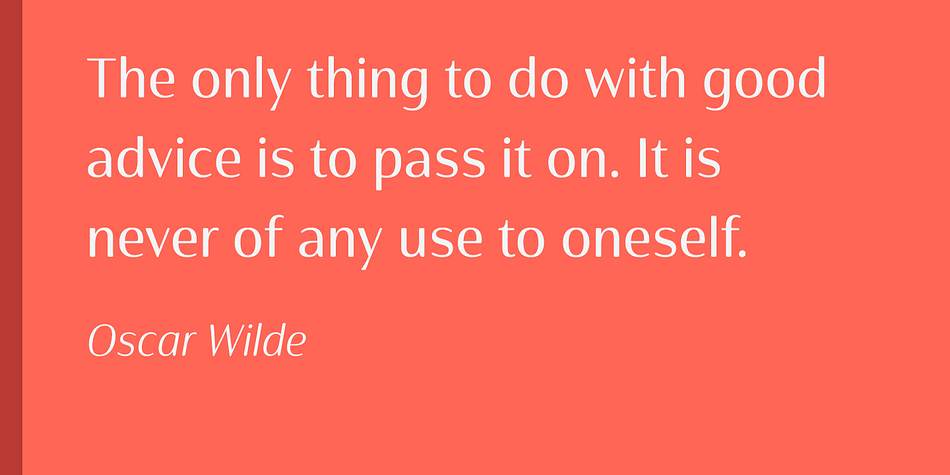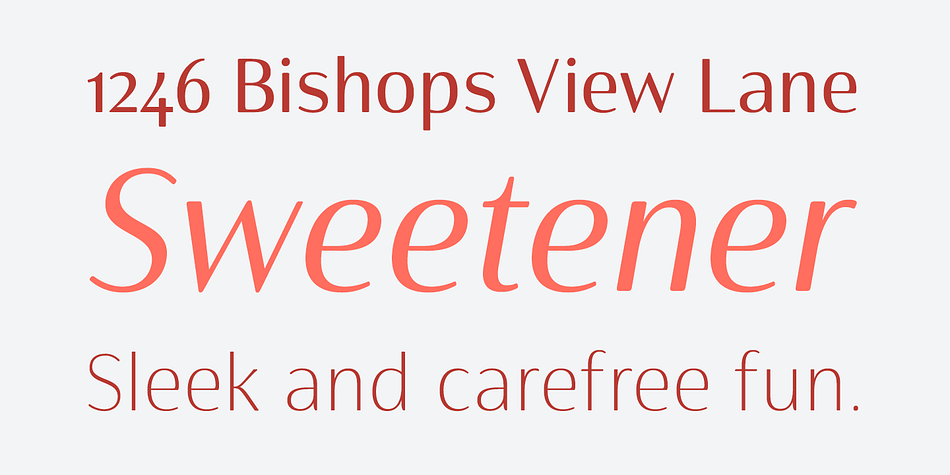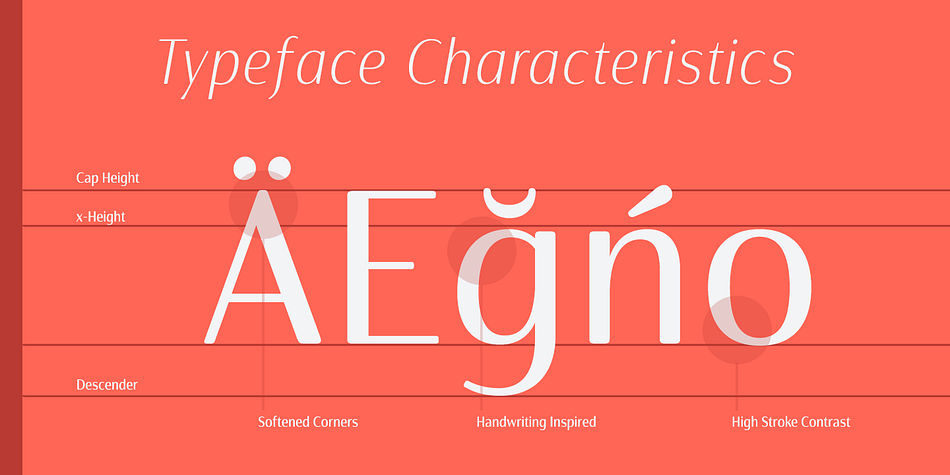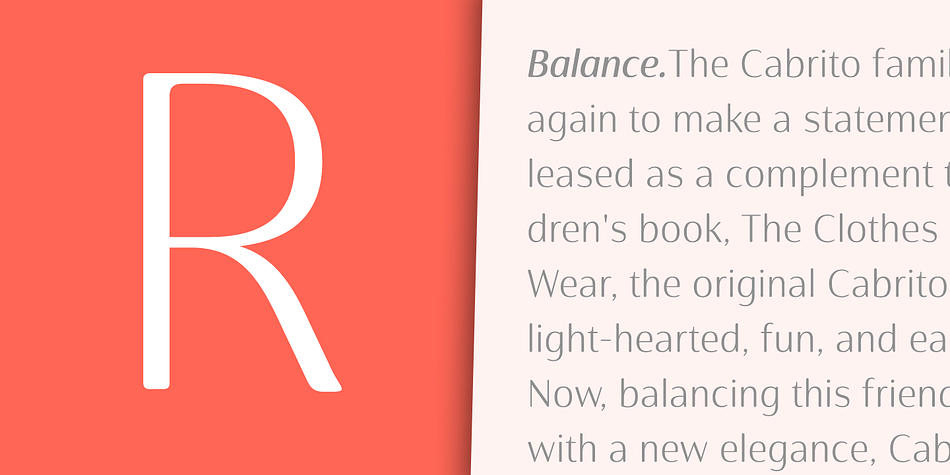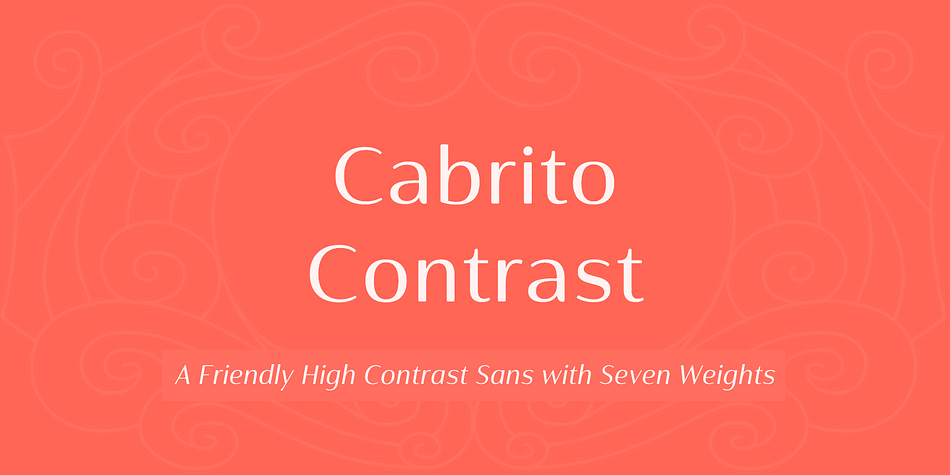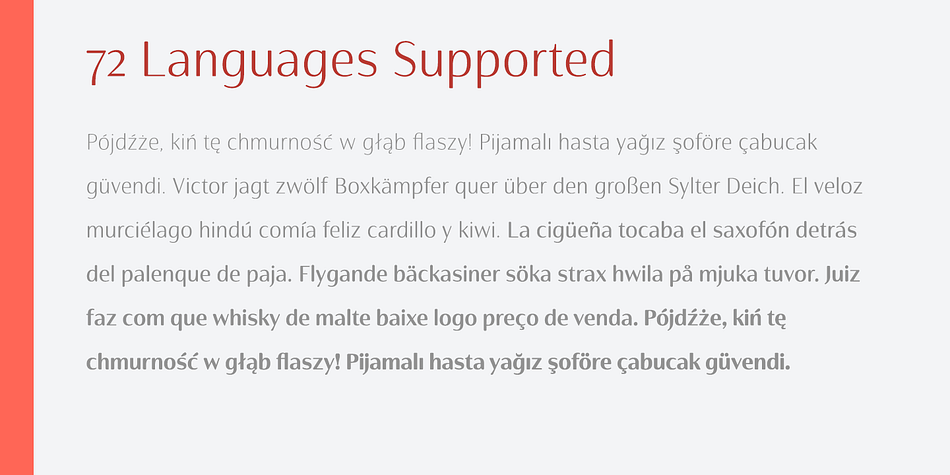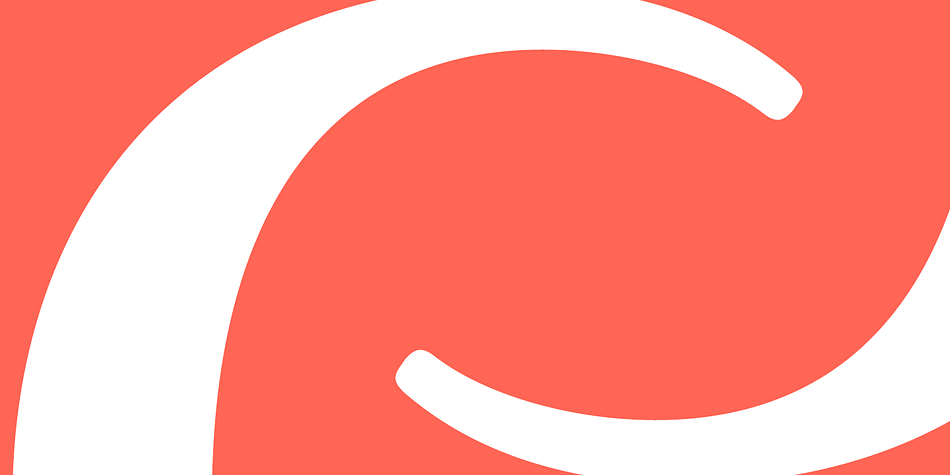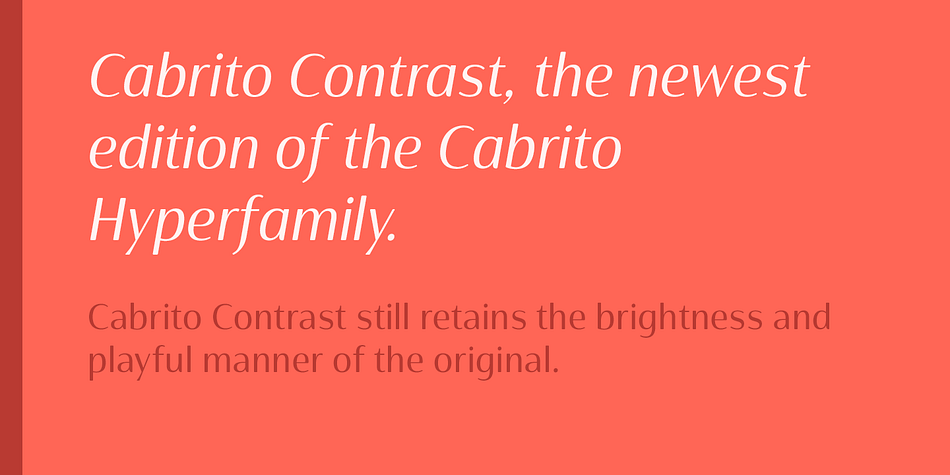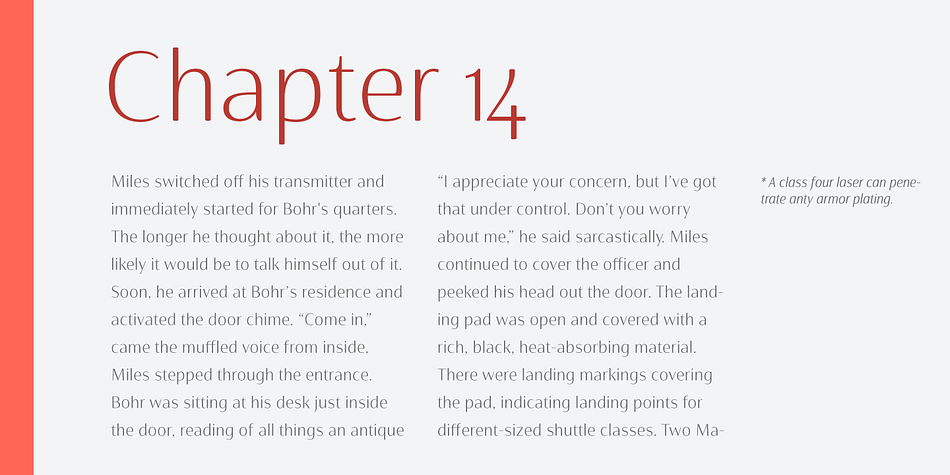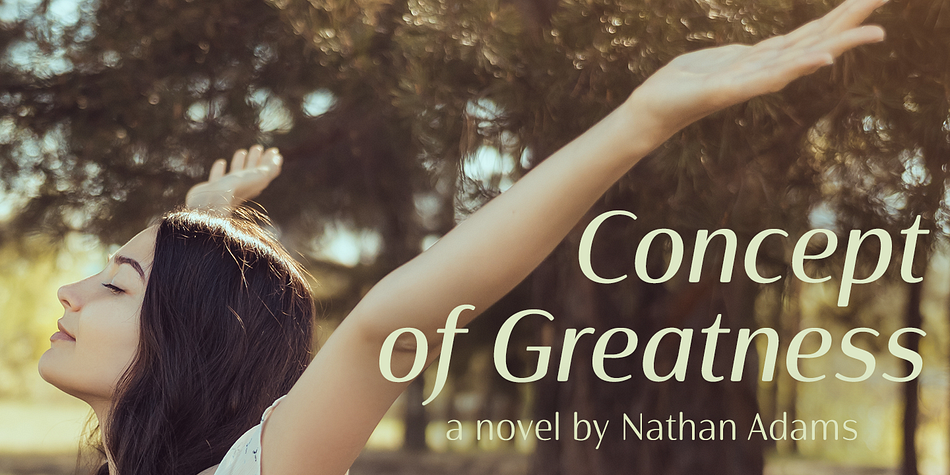
Designed by Jeremy Dooley, Cabrito Contrast is a sans serif font family. This typeface has fifty-four styles and was published by Insigne Design.
The Cabrito family is back again to make a statement. Released as a complement to the children’s book, The Clothes Letters Wear, the original Cabrito is light-hearted, fun, and easy to read. Now, balancing this friendliness with a new elegance, Cabrito Contrast steps forward—a handsome typeface with an extra-sophisticated sensibility injected into the design. Still bright and playful in its Cabrito ancestry, this new Cabrito member approaches the field with a cleaner, more reductionist form, ensuring that its polished look retains the readability.
Regular features and Italic forms of the 54 fonts include upright alternates, ligatures, and old figures. A range of weights include extended and condensed variants. To preview any of these interactive features, see the PDF manual. The family also includes language support for 72 Latin-based languages, and there are over 600 glyphs for further refining your work. Cabrito Contrast is best used for logos and packaging as well as flyers and websites, though its readability makes it a great option across a wide variety of works. In short, it’s well-designed just for you.
Take a stroll with Cabrito Contrast, and see how much fun refinement can be. Along the way, take a look at a few other members of Cabrito, too and see how well the likes of Original, Inverto or Didone can pair with the new Contrast.